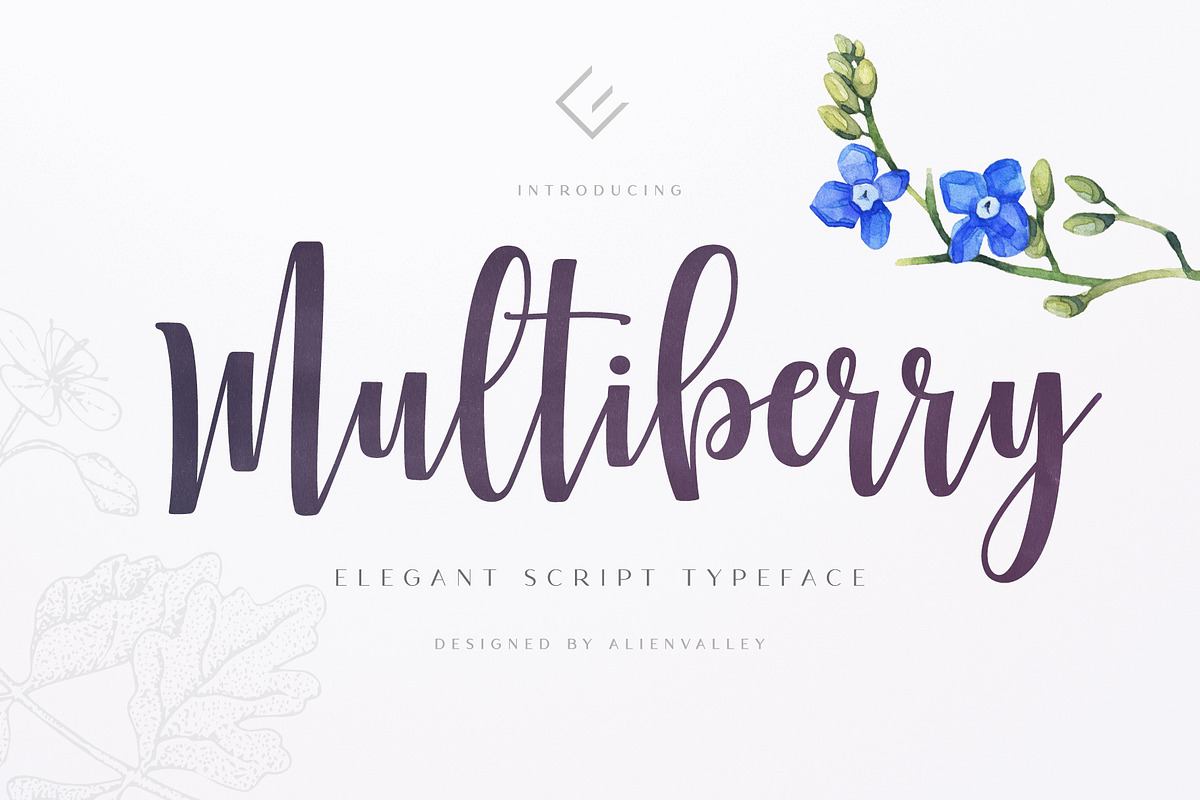
Multiberry - Script Font Free Download
Please note, you must purchase this font for commercial use. However, you can easily download Multiberry Script Font Free Download for personal use and testing purposes. Multiberry Script Font is a modern, elegant handwritten script typeface designed to bring sophistication and personality to your designs. Perfect for invitations, logos, branding, and creative projects, this font features smooth, flowing strokes and a natural handwritten feel. Whether you're designing a chic wedding invitation, a creative brand identity, or promotional materials, Multiberry Script Font Free Download will add a stylish and personal touch to your typography. Download Multiberry Script Font Free Download today and explore its potential before opting for a commercial license.